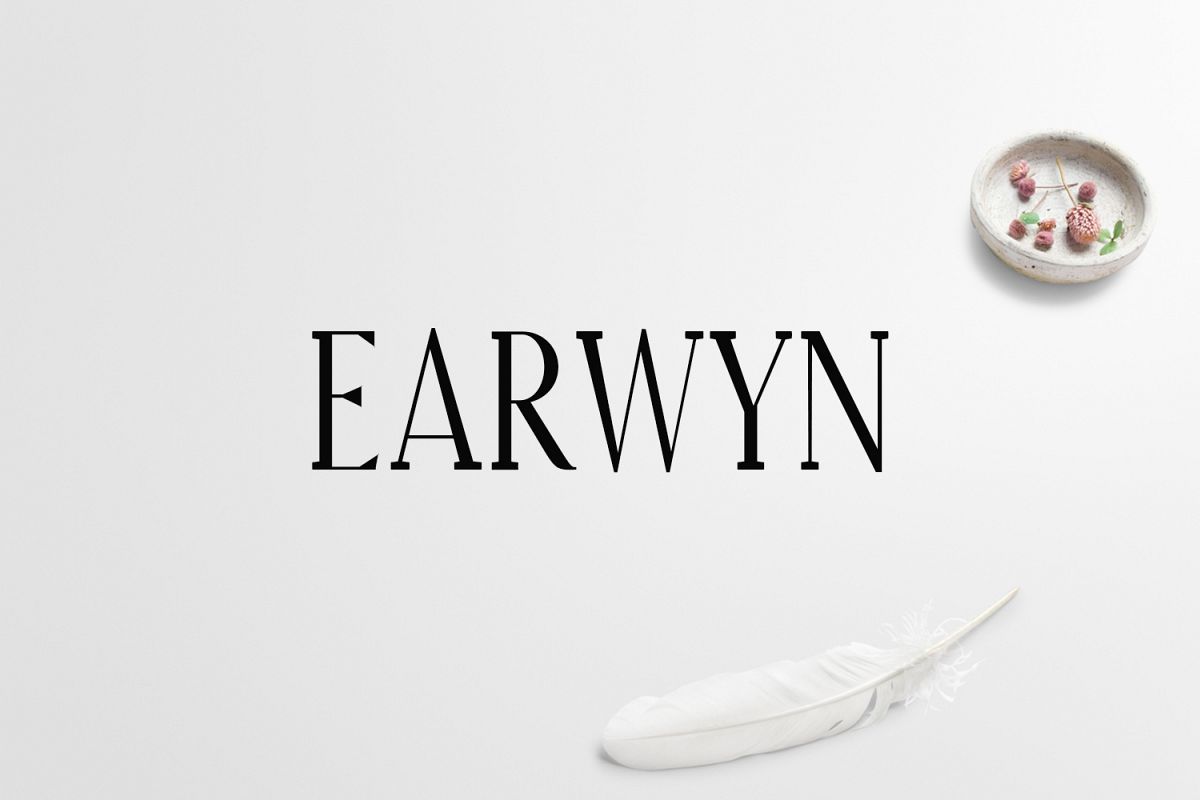
Earywn Serif 3 Font Family Pack
Earwyn-Light
Earwyn-Regular
Earwyn-Thin
Earwyn Serif 3 Font Family Pack features unique and modern serif look and feel. Perfect for gorgeous logos, titles, web layouts and branding. It looks gorgeous in all caps with a wide-set spacing if you want to try a classy look, or beautiful on its own in capital and lowercase letters for something completely timeless.
Included Features:
• Font Weight: Regular, Light and Thin
Earwyn Font Features:
• Uppercase Multilingual Letters
• Lowercase Multilingual Letters
• Alternative